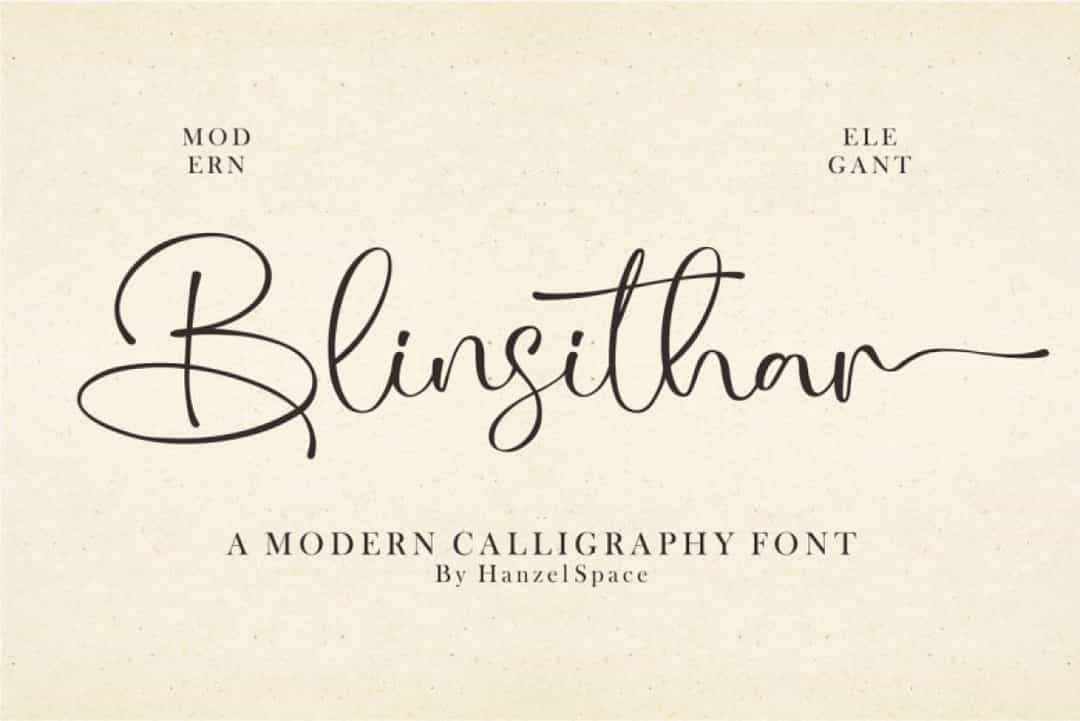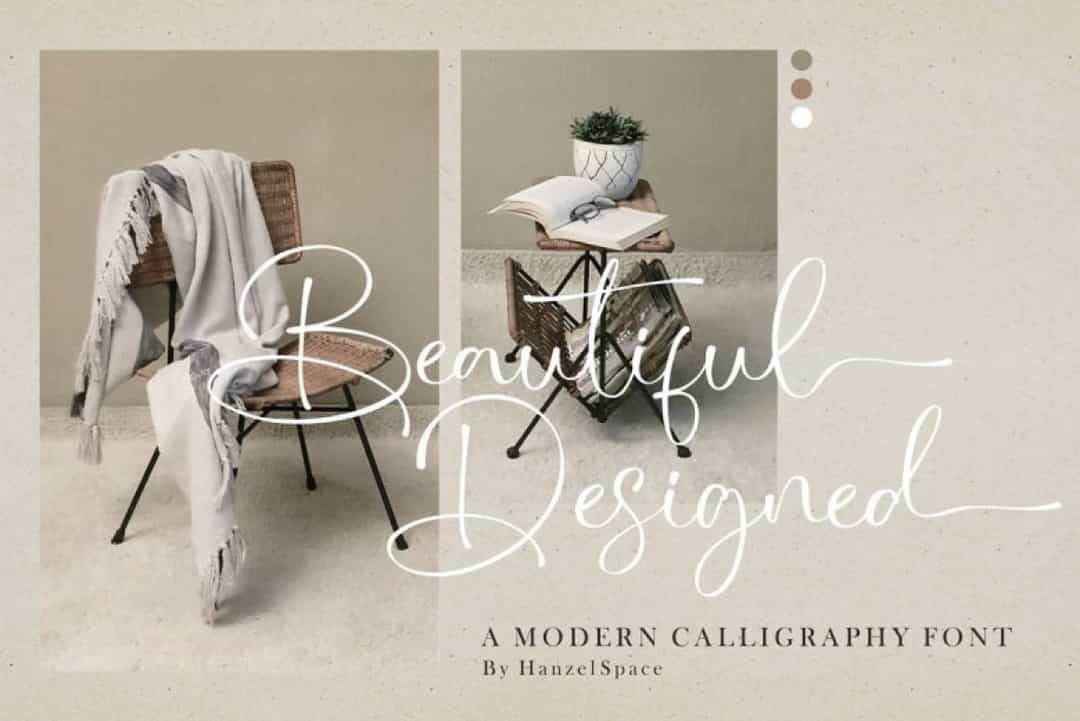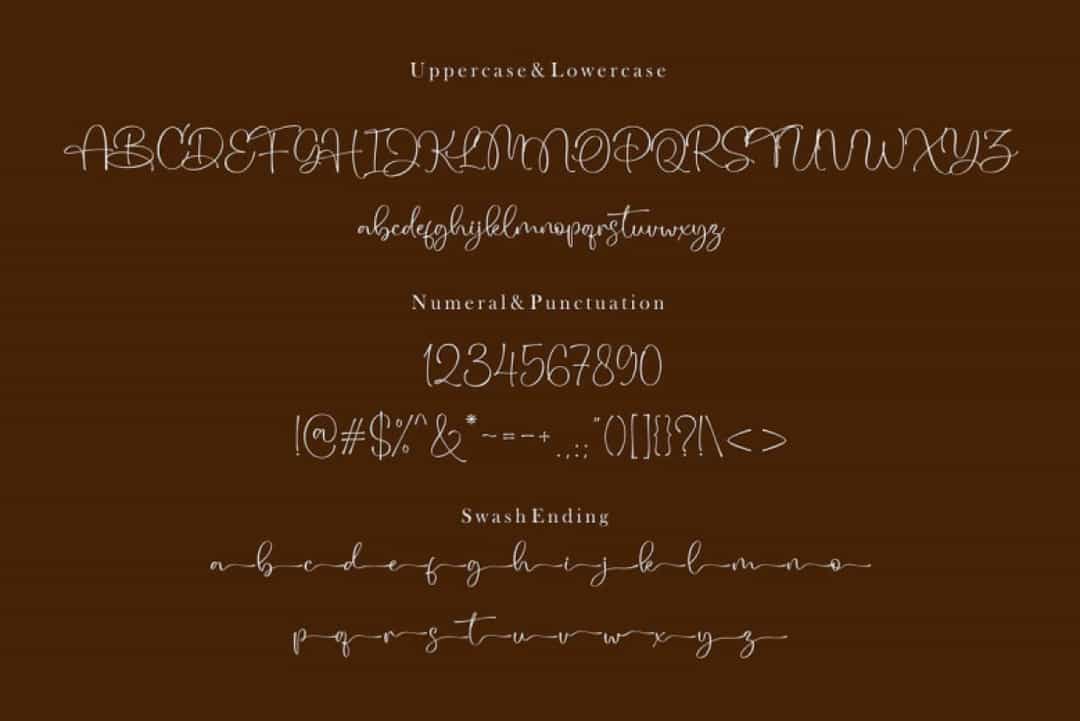
“Blinsithar” font was released to great fanfare in 2023, featuring many fresh ideas and characters that stand out. With stunning curves that add character, and complete uppercase, lowercase letter punctuation punctuations swash and ligature (ligatures).